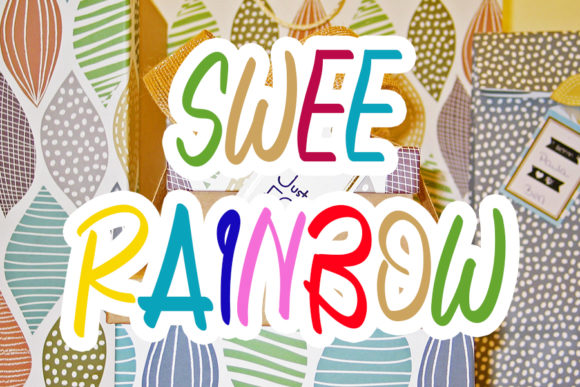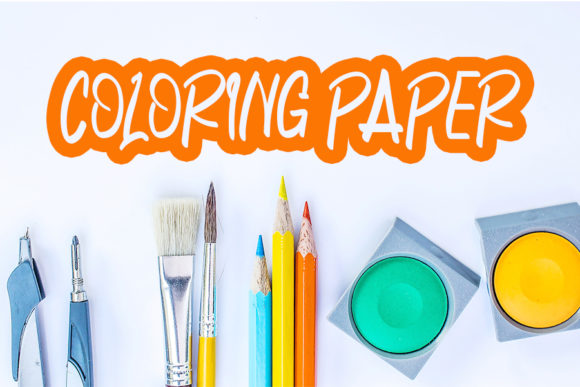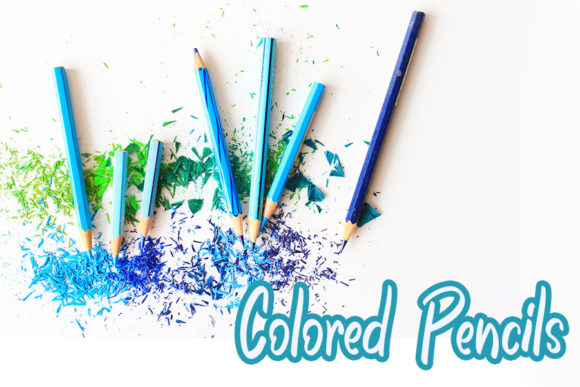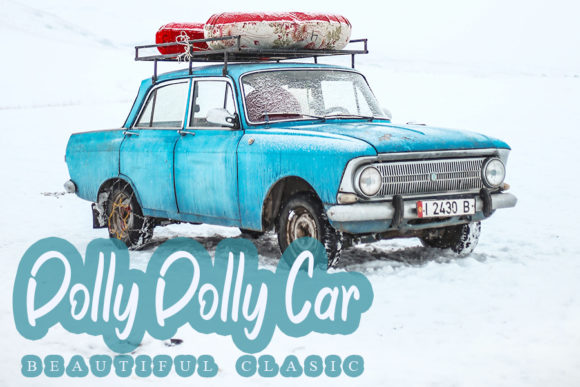
Introduction to November is Cheerful Font
November Is Cheerful is a sweet and simple display font.
Get creative with this neat and playful font and make beautiful designs .